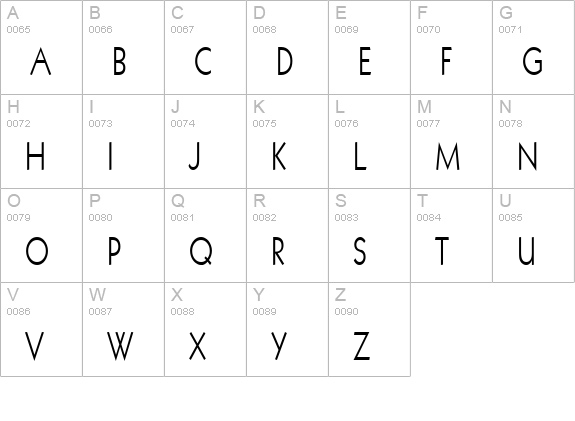
Geo 112 Thin Normal is a delicate, low-contrast variant in the Geo typeface family \xE2\x80\x94 well suited to fashion editorial, minimal branding, and high-contrast display.
Geo 112 Thin Normal font is a sleek and modern typeface that exudes sophistication and elegance. With its thin strokes and clean lines, this font is perfect for creating a minimalist and contemporary look in your designs. Whether you're working on a branding project, a website, or any other creative endeavor, Geo 112 Thin Normal font will add a touch of refinement to your work. The best part? Geo 112 Thin Normal font is available for free download at FontsMarket.com. Simply visit the website and get instant access to this stylish and versatile font. Don't miss out on the opportunity to enhance your projects with the beauty of Geo 112 Thin Normal font. Download it today and take your designs to the next level!